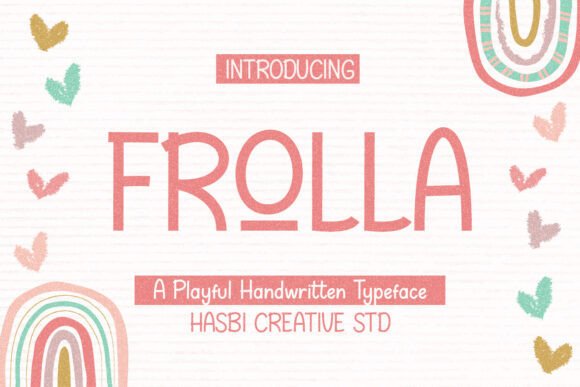
Frolla Font: The Ultimate Choice for Friendly and Creative Designs
In the world of typography, fonts play a crucial role in conveying the tone and personality of a design project. Among the numerous fonts available, Frolla Font stands out for its charming and playful handwritten style. This article will explore the features, benefits, and uses of Frolla Font, highlighting why it’s an excellent choice for both personal and professional design projects.
What is Frolla Font?
Frolla Font is a beautiful, handwritten typeface that exudes a friendly and approachable vibe. Its casual yet stylish look makes it perfect for a wide range of design applications, from social media graphics and blog posts to branding and advertising materials. Frolla’s unique charm lies in its ability to add a touch of warmth and personality to any design, making it an ideal choice for designers looking to create engaging and memorable content.
Key Features of Frolla Font
- Handwritten Style: Frolla’s handwritten style gives it a personal and approachable feel, making it perfect for designs that require a friendly tone.
- Casual yet Stylish: Frolla’s casual look makes it suitable for informal designs, while its stylish elements ensure it remains elegant and sophisticated.
- Versatile: Frolla is highly versatile, making it suitable for various design applications, from digital content to print materials.
- Easy to Read: Frolla’s clear and legible design ensures that your message is conveyed effectively, making it perfect for body text and headings.
Benefits of Using Frolla Font
Frolla Font offers numerous benefits that make it an excellent choice for designers. Some of the key advantages include:
- Unique Personality: Frolla’s charming and playful style adds a unique personality to your designs, setting them apart from more traditional fonts.
- Emotional Connection: Frolla’s friendly and approachable vibe helps create an emotional connection with your audience, making your designs more relatable and engaging.
- Time-Saving: Frolla’s versatility and ease of use save you time and effort, allowing you to focus on other creative aspects of your project.
- Professional Results: Despite its casual look, Frolla delivers professional results, making it suitable for both personal and business designs.
Use Cases for Frolla Font
Frolla Font is suitable for a wide range of design applications, including:
- Branding and Logo Design: Frolla’s unique style makes it perfect for creating memorable brand identities and logos.
- Social Media Graphics: Frolla’s playful and engaging style is ideal for social media graphics, helping you stand out in crowded feeds.
- Blog Posts and Articles: Frolla’s readability and style make it perfect for blog posts, articles, and other written content.
- Advertising and Marketing Materials: Frolla’s friendly and approachable vibe makes it suitable for advertising and marketing materials, such as flyers, brochures, and posters.
- Packaging Design: Frolla’s playful style makes it perfect for packaging design, adding a touch of personality to product labels and packaging.
Tips for Using Frolla Font Effectively
To get the most out of Frolla Font, consider the following tips:
- Pair with Complementary Fonts: Pair Frolla with complementary fonts to create visual interest and hierarchy in your designs.
- Use for Headings and Titles: Use Frolla for headings and titles to add a touch of personality and style to your designs.
- Experiment with Colors: Experiment with different colors to find the perfect match for your brand and design.
- Keep it Simple: Keep your design simple and clean to ensure Frolla’s playful style shines through.
Frolla Font is a charming and playful handwritten font that adds a friendly and approachable vibe to any design project. Its casual yet stylish look makes it perfect for both personal and professional use, making your creations stand out effortlessly. With its versatility, readability, and unique personality, Frolla is an excellent choice for designers looking to bring creativity and warmth to their projects. Whether you’re designing for fun or business, Frolla Font is the perfect choice to elevate your designs and connect with your audience.
- What is Frolla Font?: Frolla Font is a charming and playful handwritten font designed for personal and professional use.